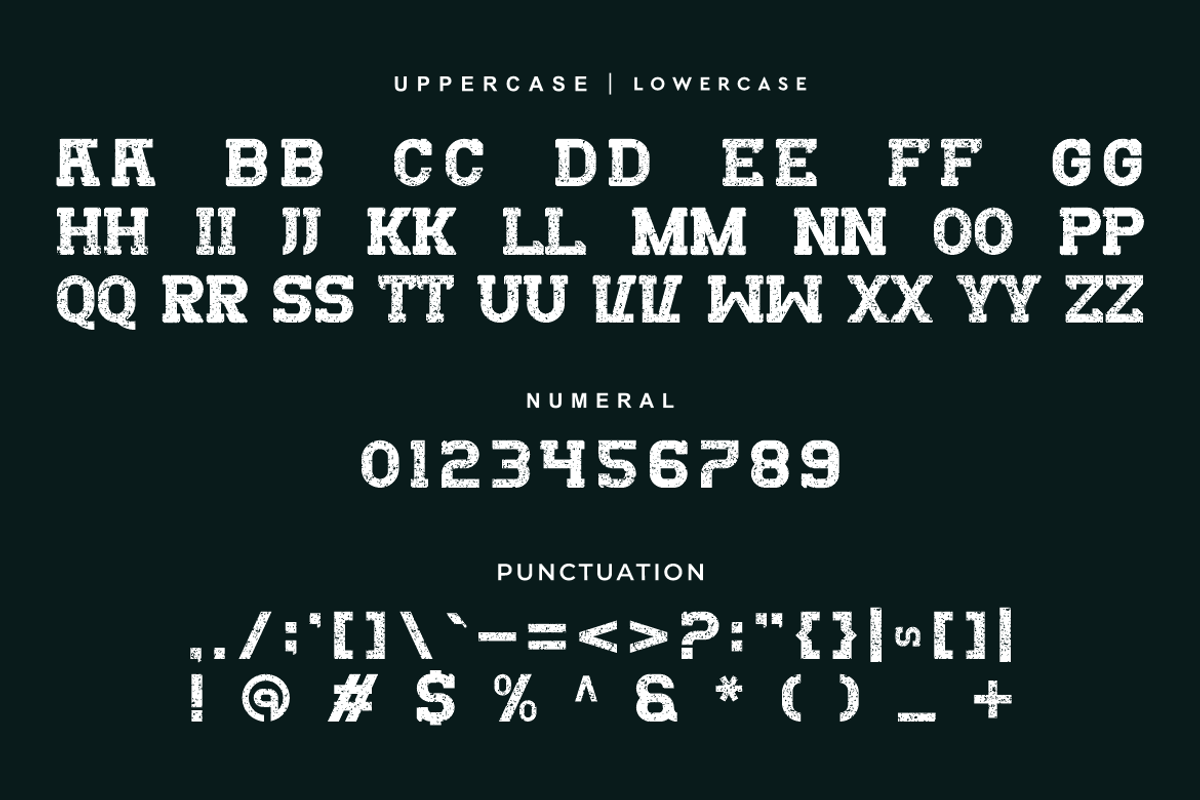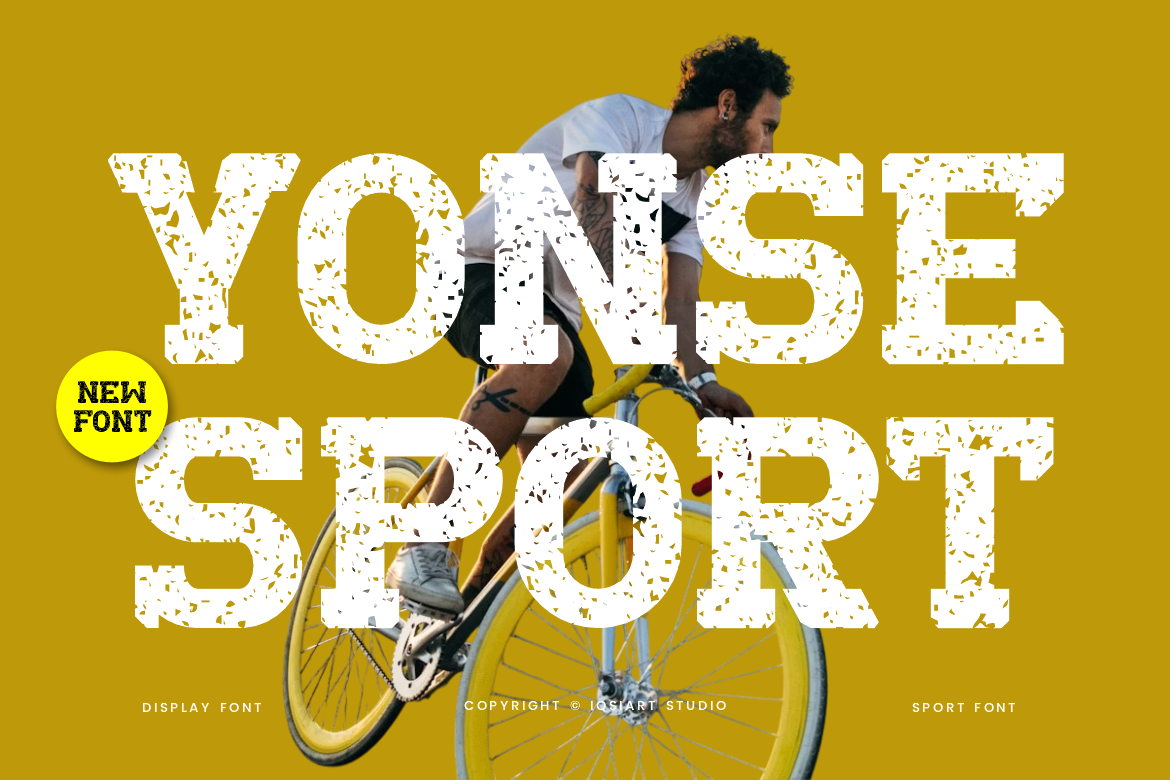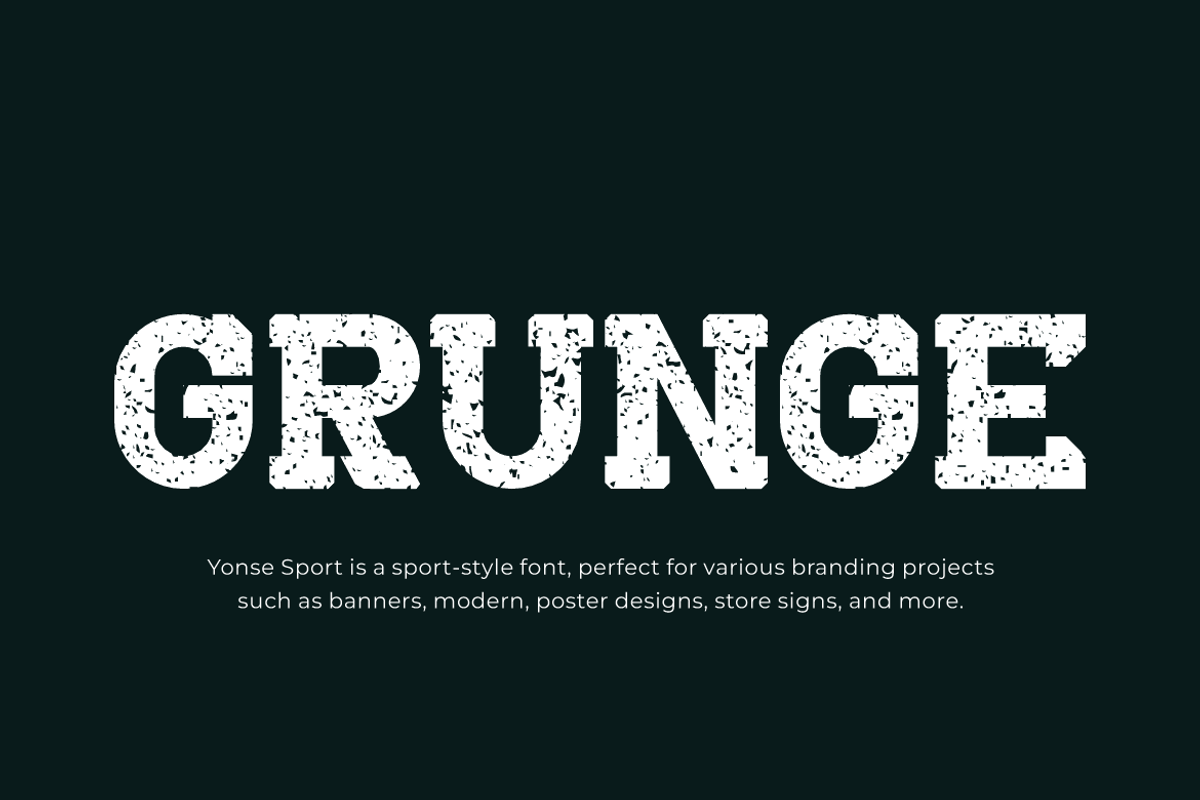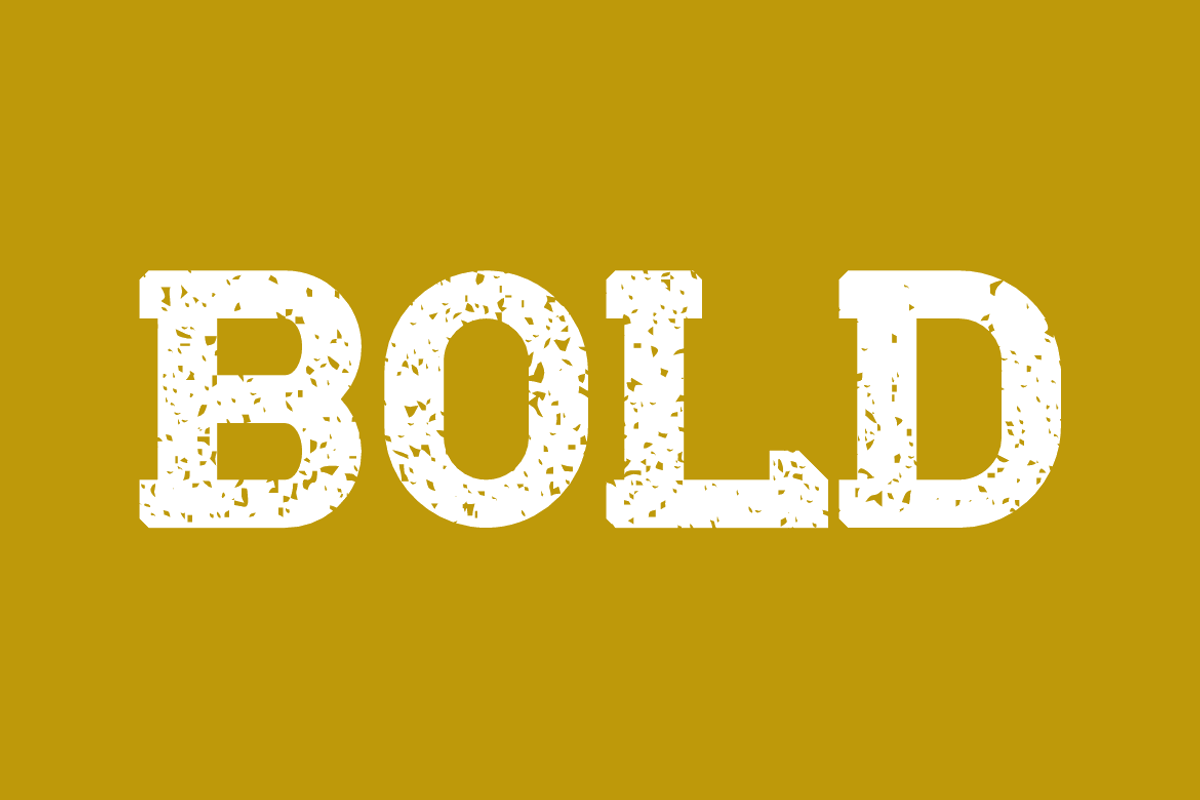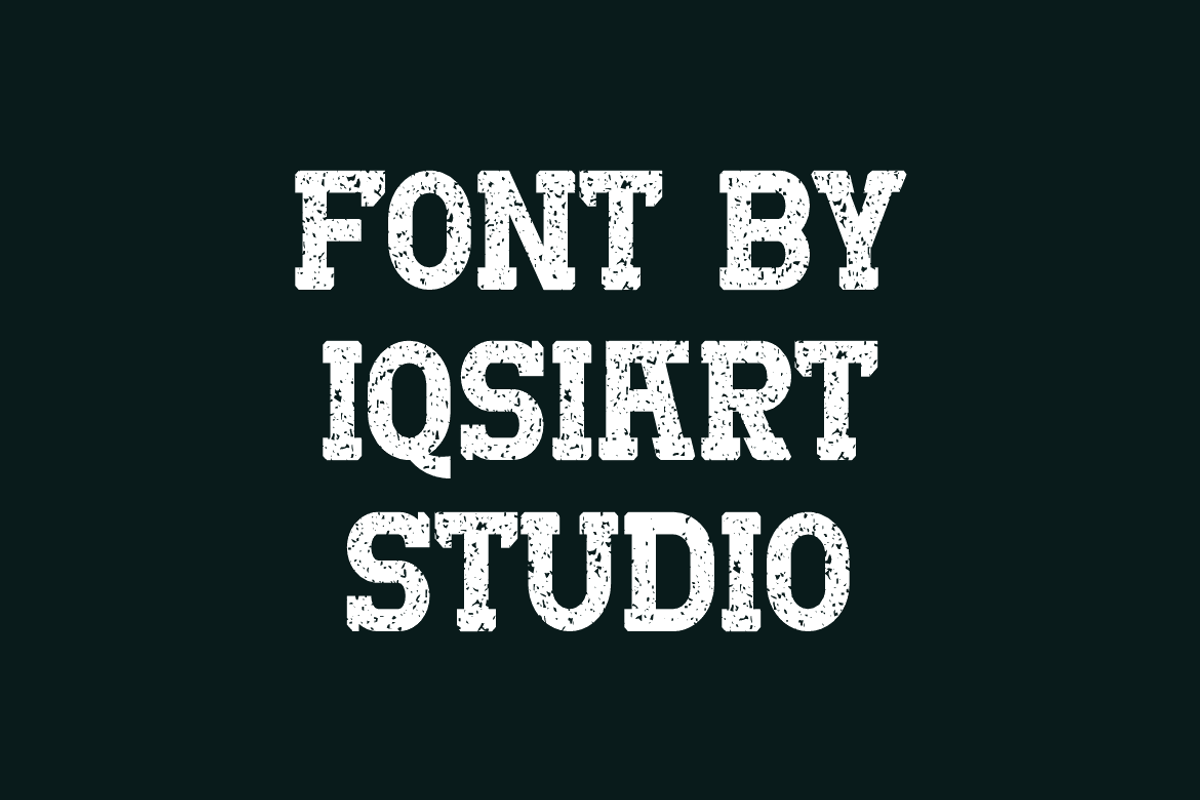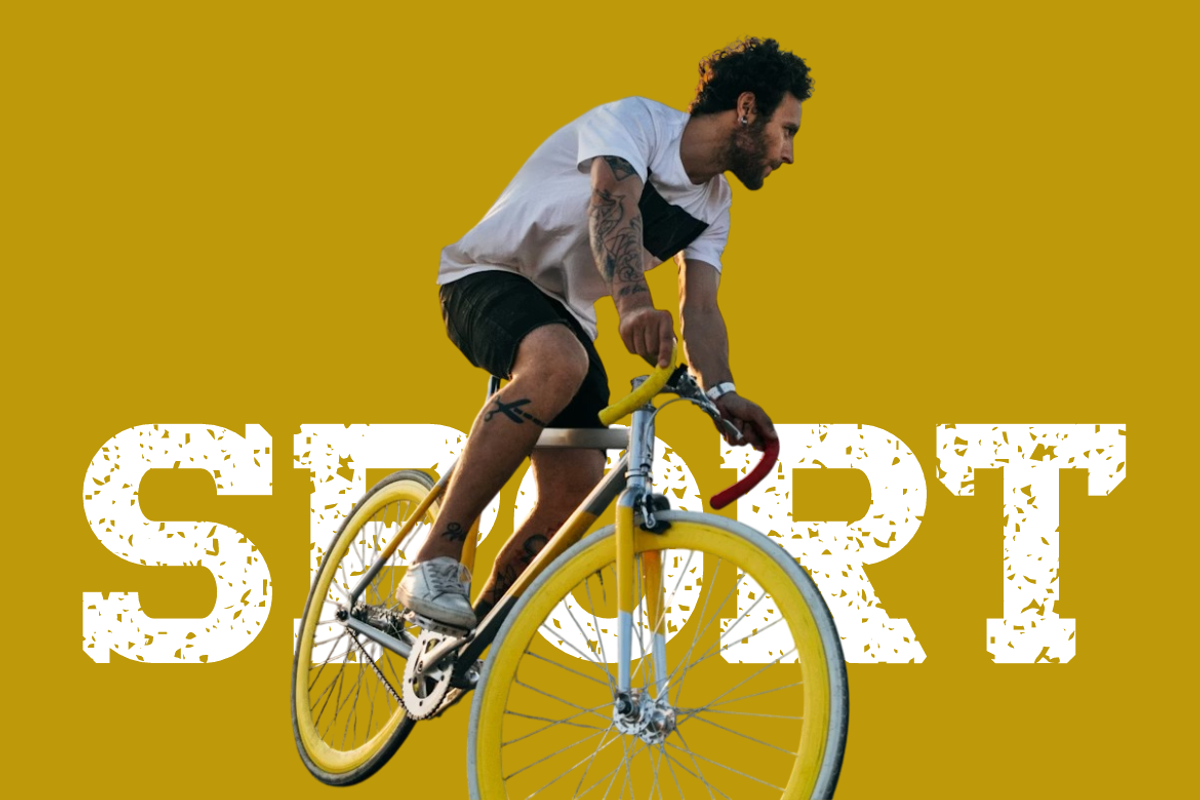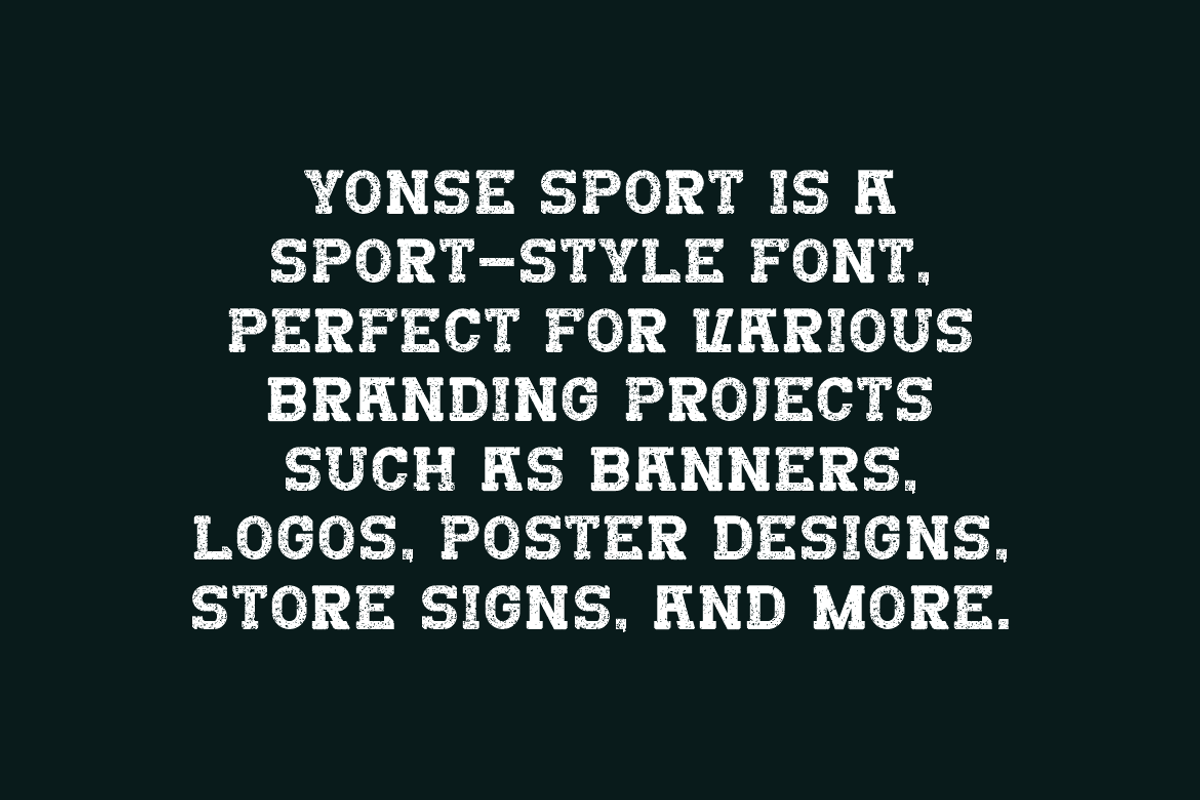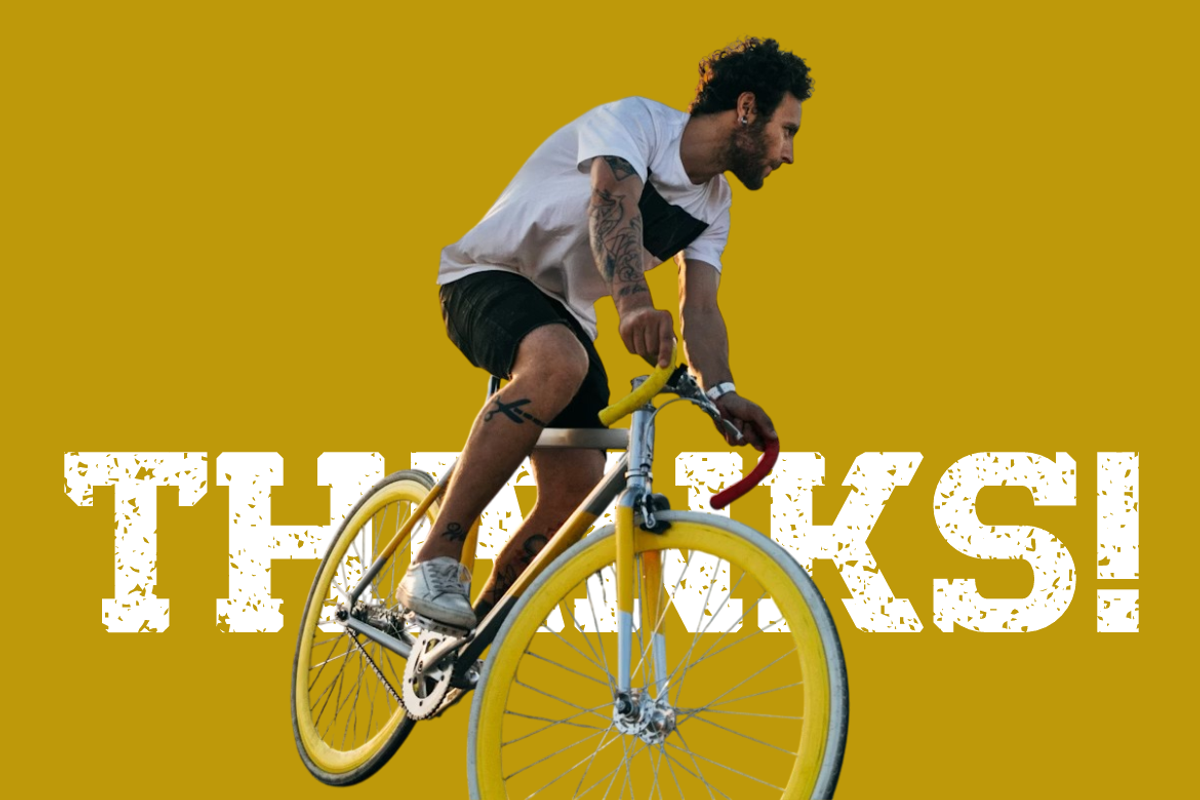
Yonse Sport - Sports Font
Yonse Sport Font is a bold and authentic display typeface
that suits a variety of design needs. We offer a wide range of themes